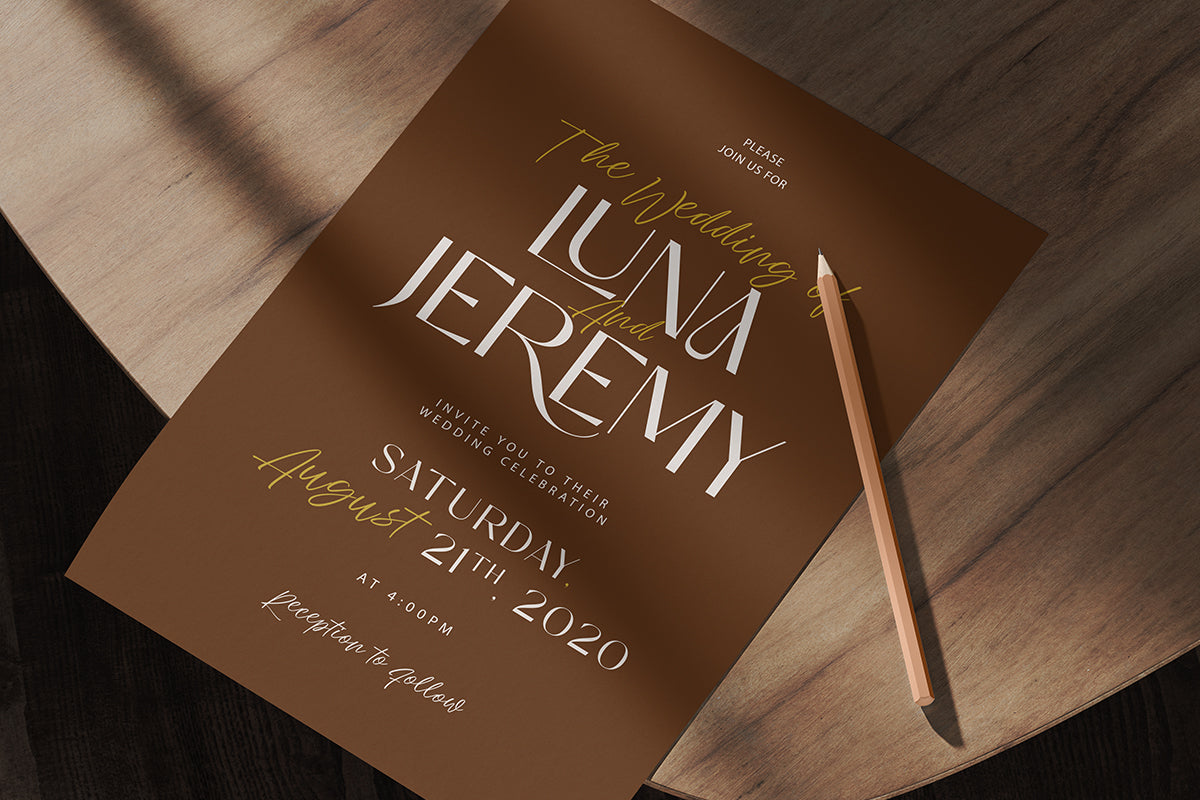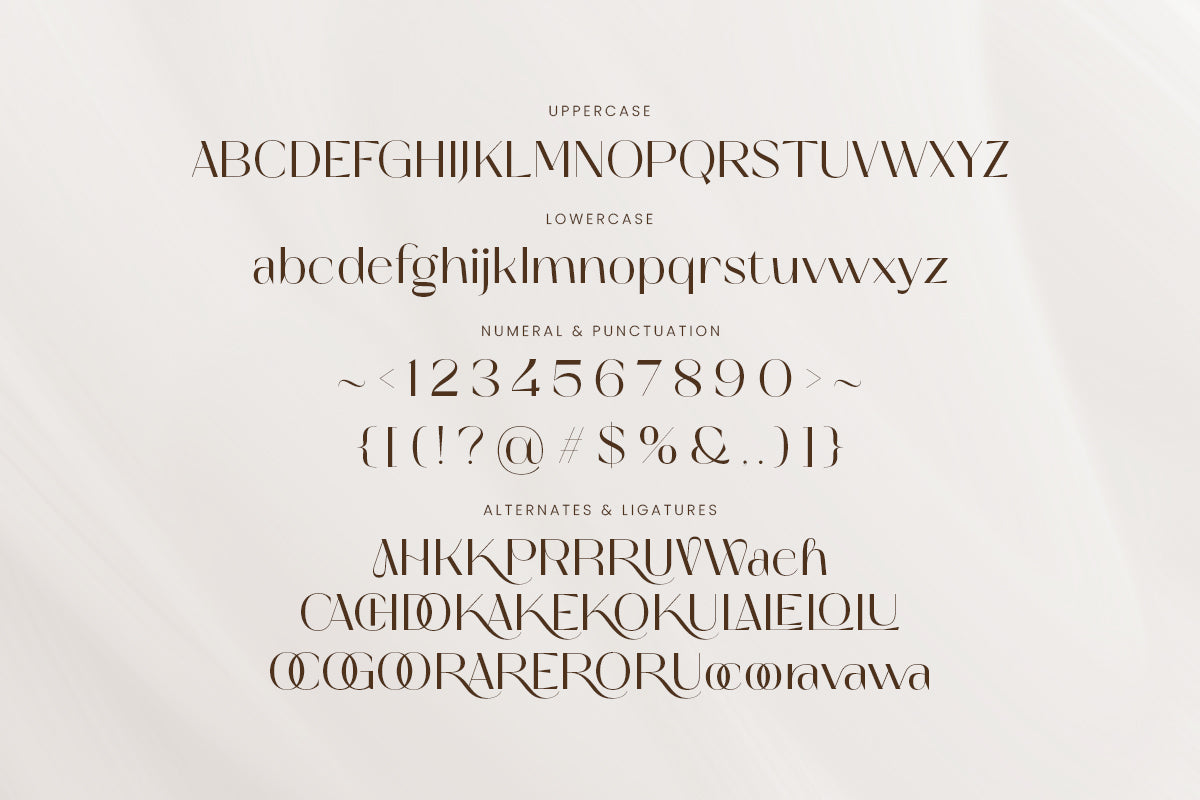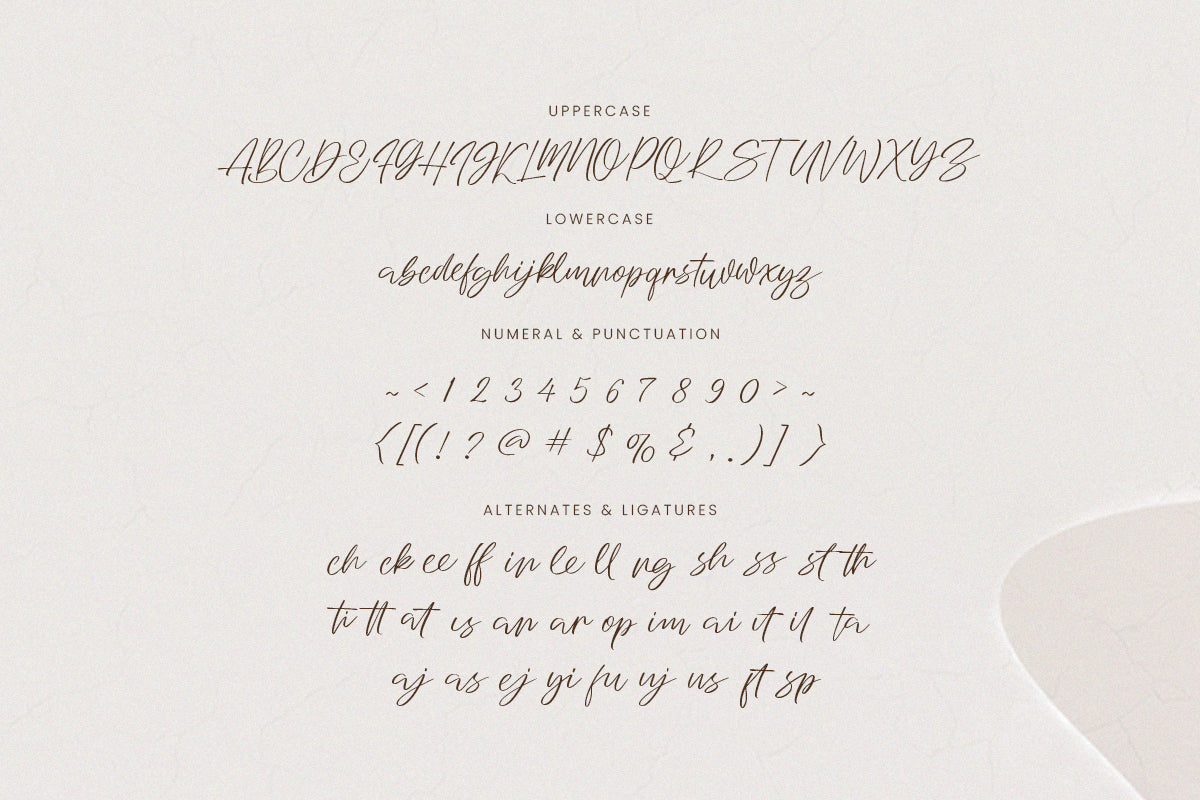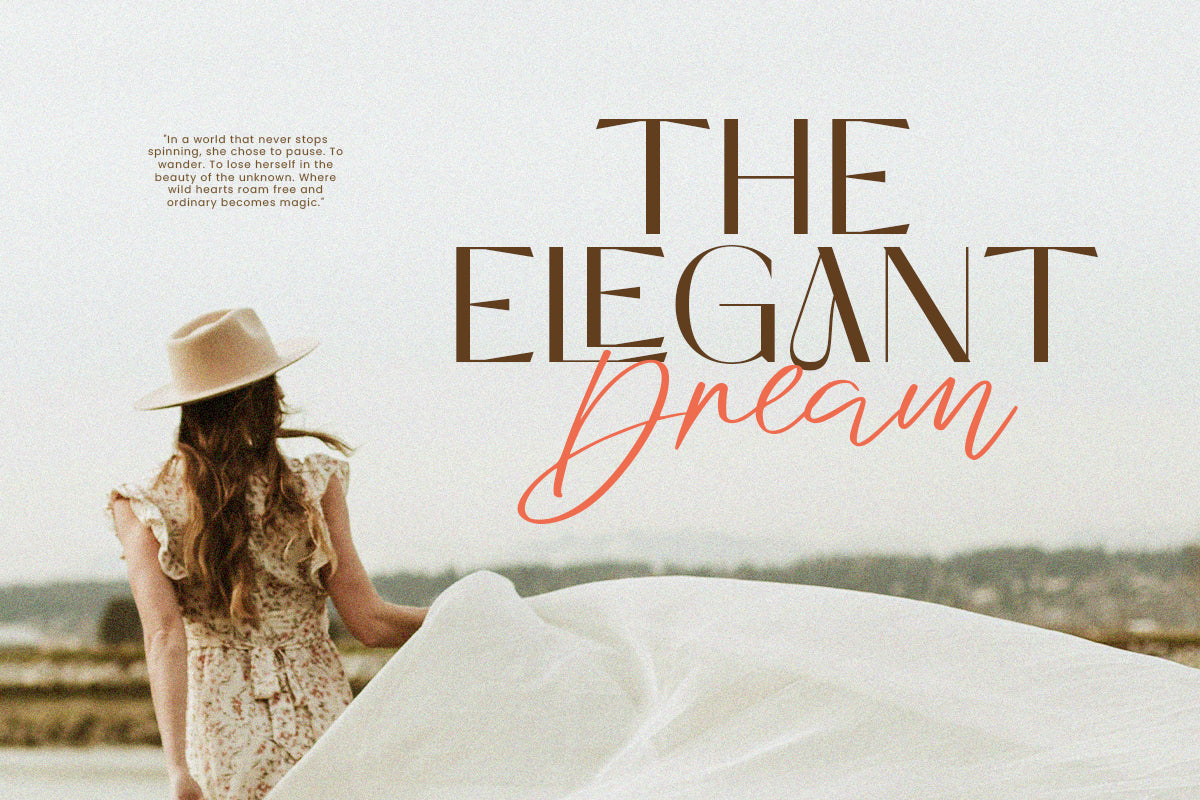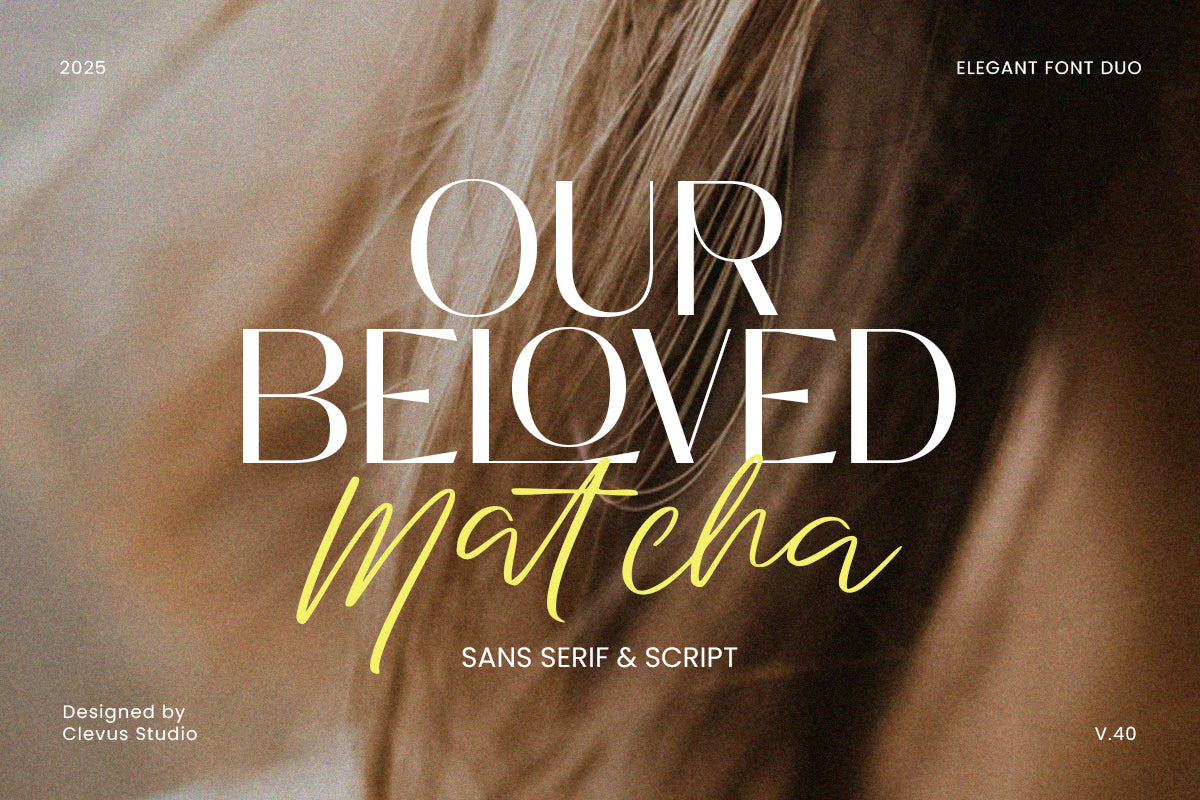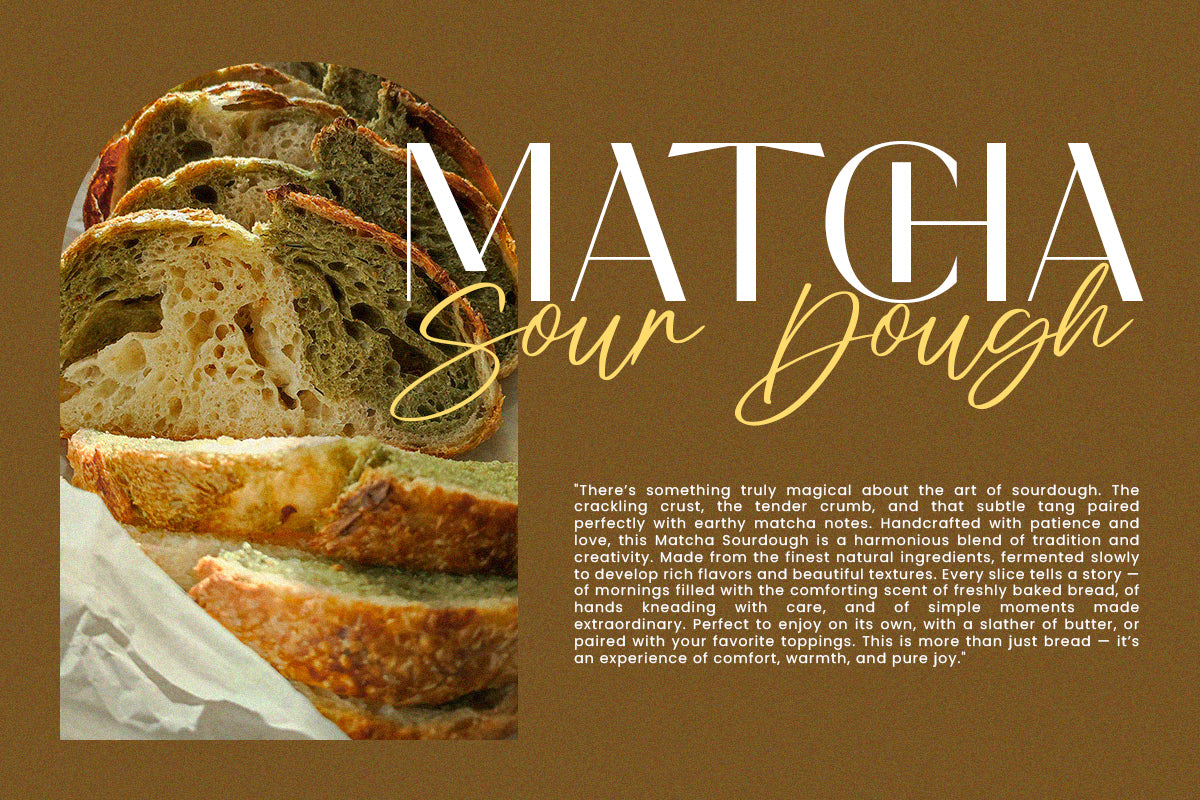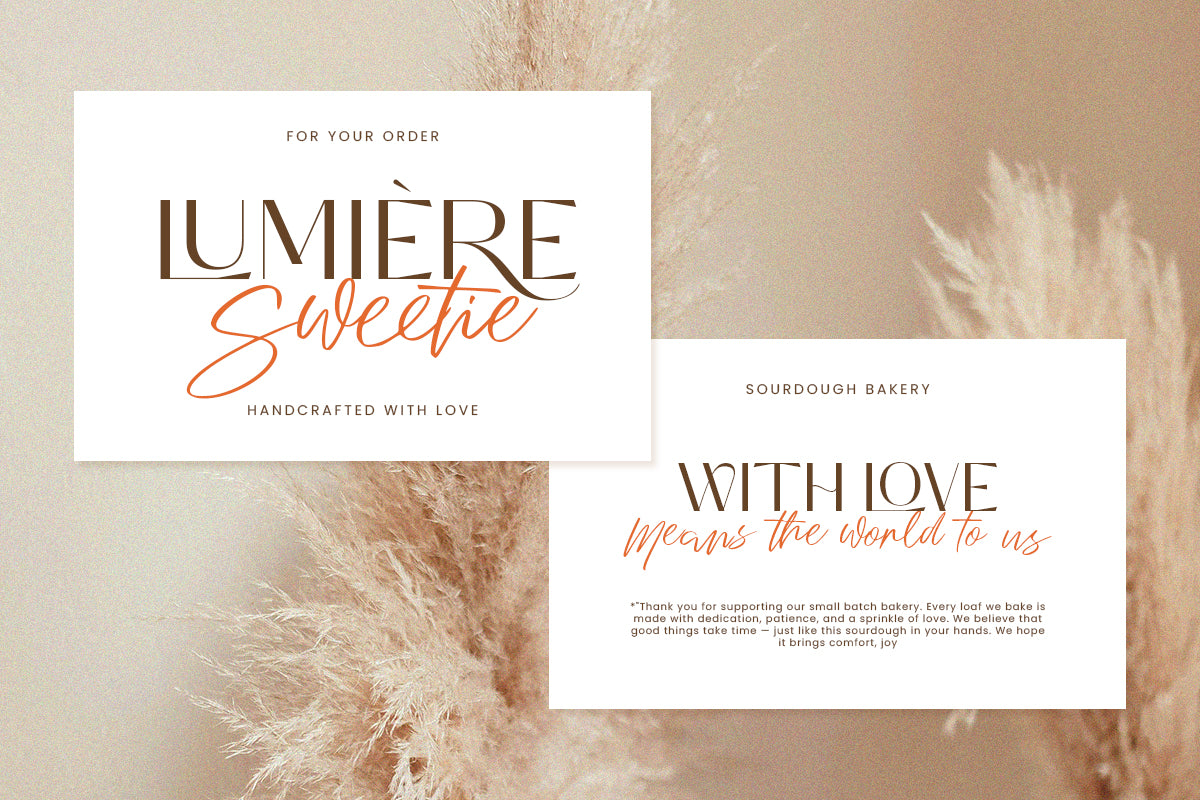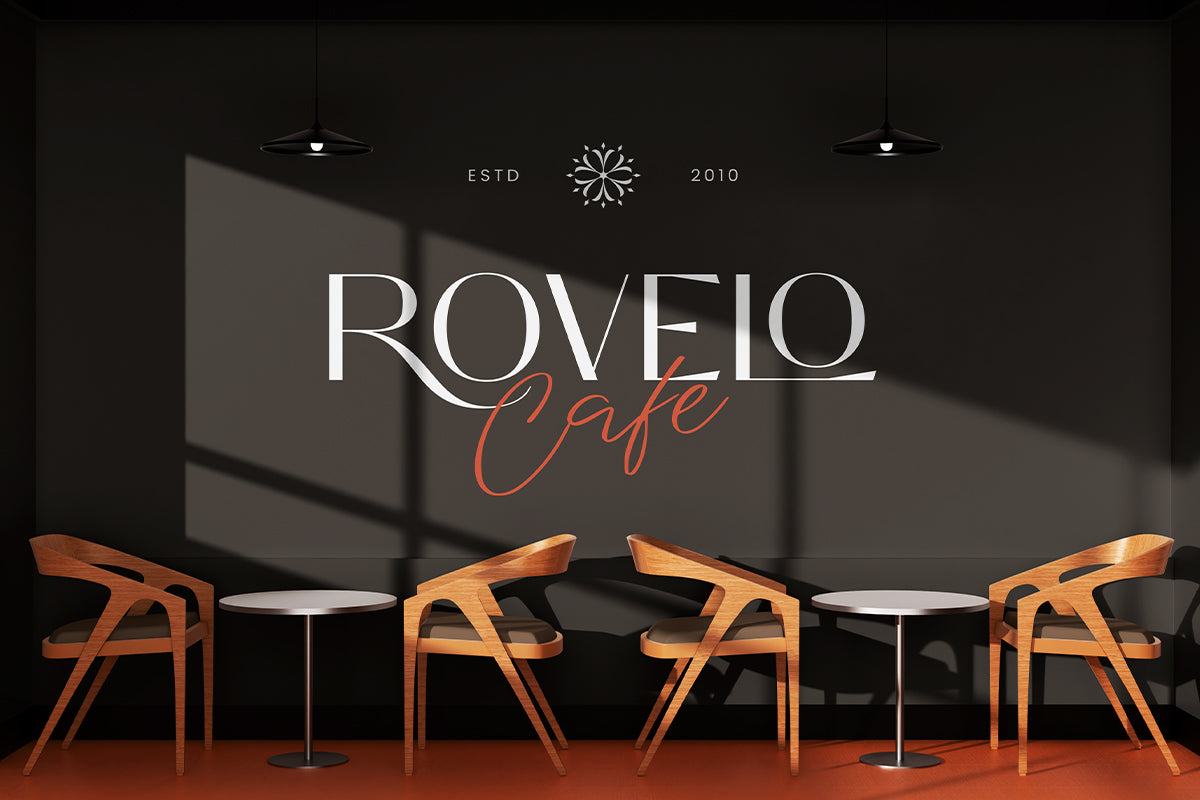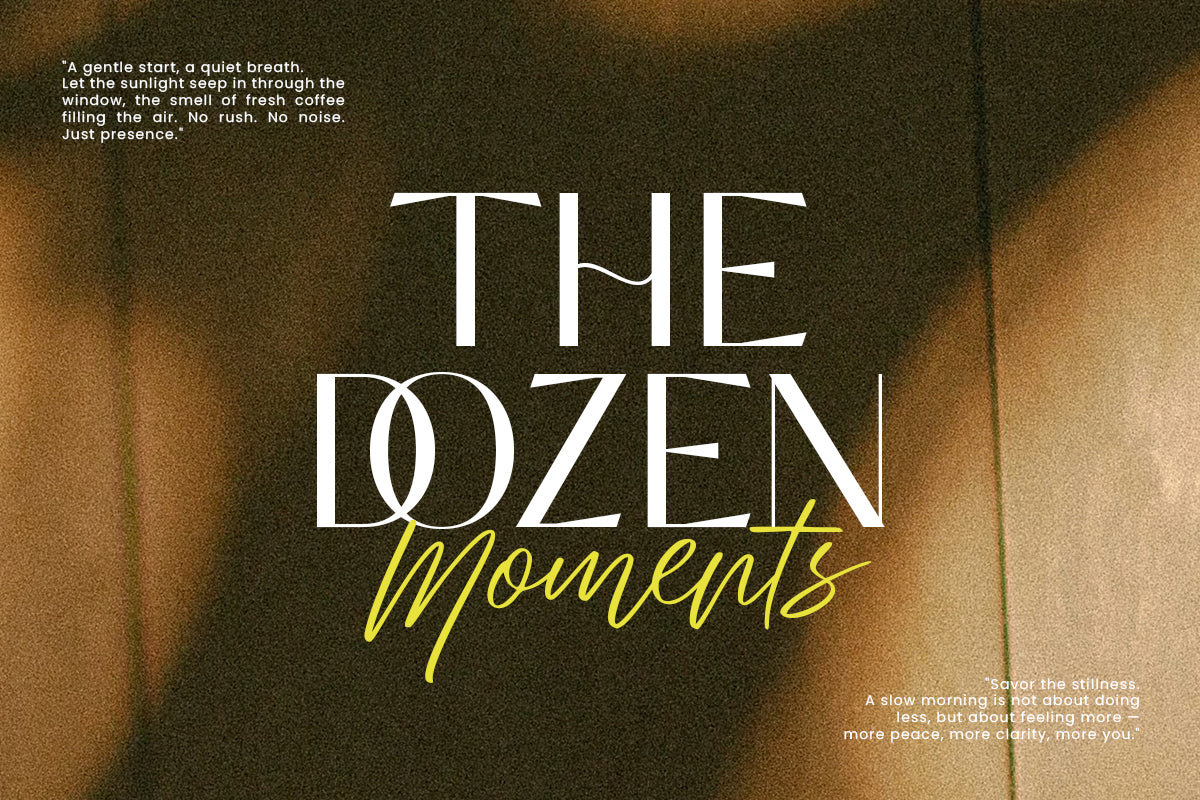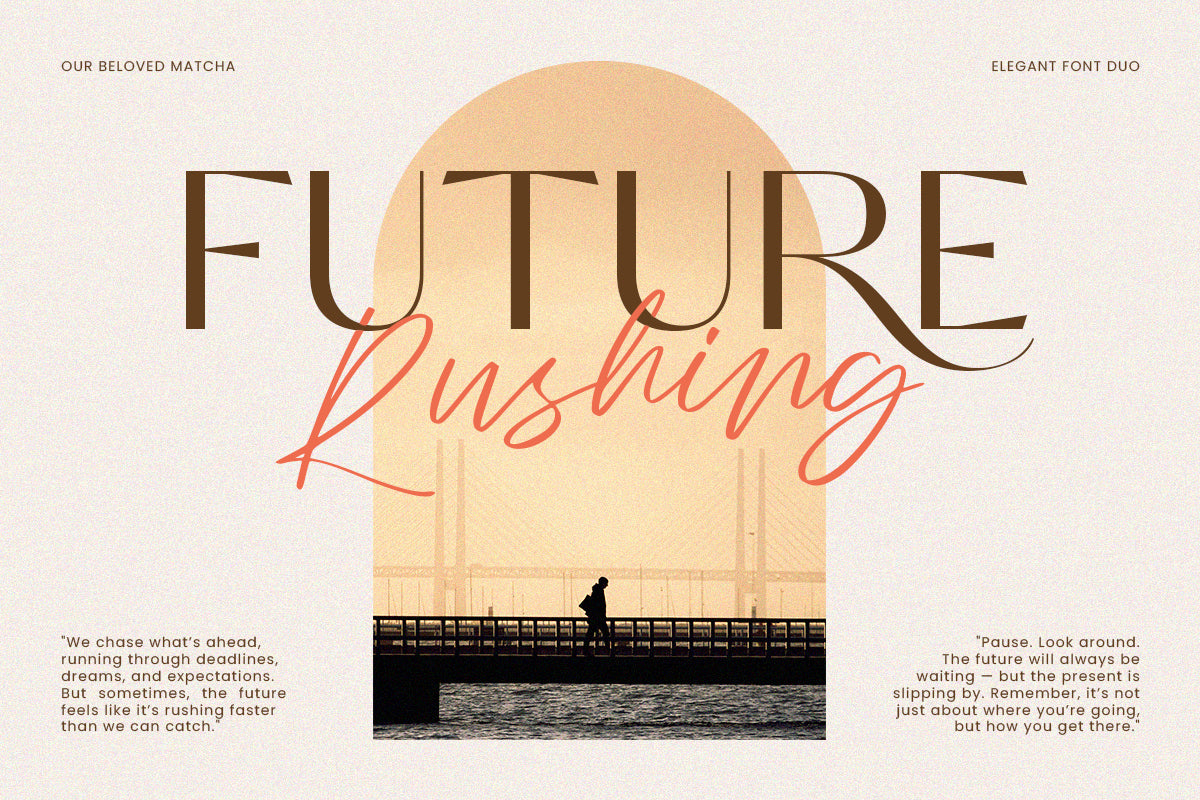
Proudly present Our Beloved Matcha created by Clevus.
Our Beloved Matcha Font Duo is a unique font design consisting of a combination of a classy sans serif font and a classic script handwritten font. It is specifically created to cater to the design needs of elegant and feminine themes, such as in magazines or branding materials. The serif font has a classic and timeless character, while the script font is designed with a personal and human touch, giving a modern and creative feel. This font duo is perfect for use in various design media such as magazines, books, posters, brand identities, logos, and more. By choosing Our Beloved Matcha Font Duo, you can add a touch of professionalism and modernity to your designs, while also providing quality and character to every design you create.
Font Features :